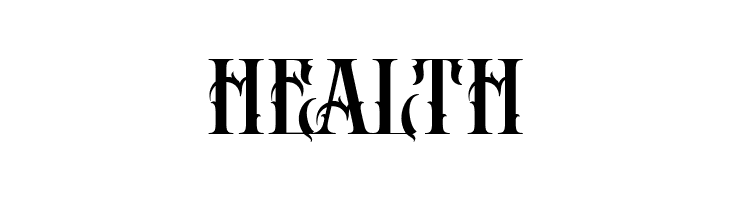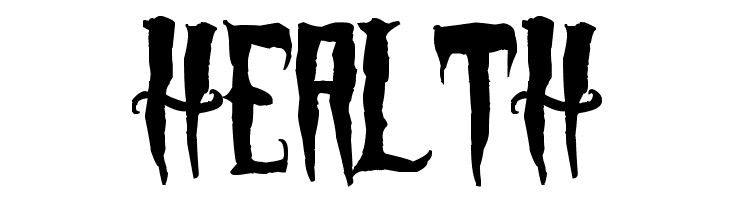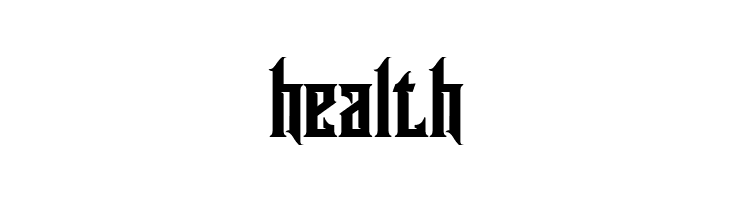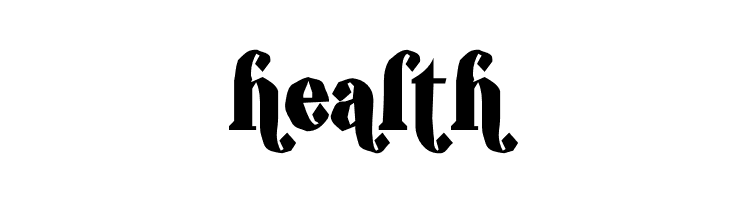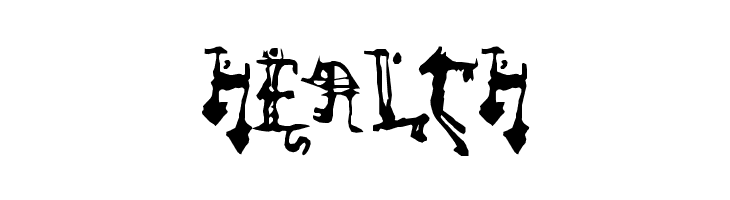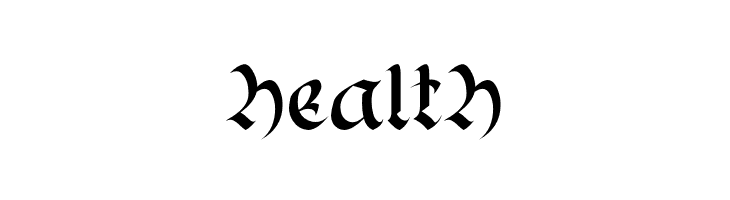
A bold, gothic-style font with intricate details and sharp serifs.
A bold, gothic-inspired font with sharp, angular lines and a modern twist.
A bold, gothic-style font with sharp serifs and high contrast strokes.
A dramatic, jagged font with a spooky, gothic style.
A decorative, gothic-style font with elongated, sharp characters.
A bold, blackletter-style font with sharp, angular lines and a gothic appearance.
A bold, gothic-inspired font with sharp serifs and dramatic flourishes.
A decorative font with gothic and organic influences, featuring intricate, twisted designs.
A bold, gothic-inspired font with sharp, angular edges and intricate detailing.
A bold, gothic blackletter font with intricate detailing and a historical flair.